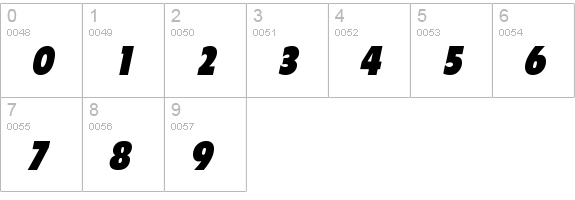
Florida-BlackIta Font Details
Florida-BlackIta is a sleek and modern font that exudes sophistication and elegance. Its bold letterforms and stylish curves make it perfect for a wide range of design projects, from logos to headlines to branding materials. The font’s unique blend of classic and contemporary elements gives it a timeless appeal that is sure to make your text stand out. Best of all, Florida-BlackIta is completely free to download at FontsMarket.com. Whether you’re a professional designer looking to add a new font to your collection or a hobbyist in need of a stylish typeface for a personal project, Florida-BlackIta is the perfect choice. Download it today and elevate your designs with this versatile and eye-catching font.